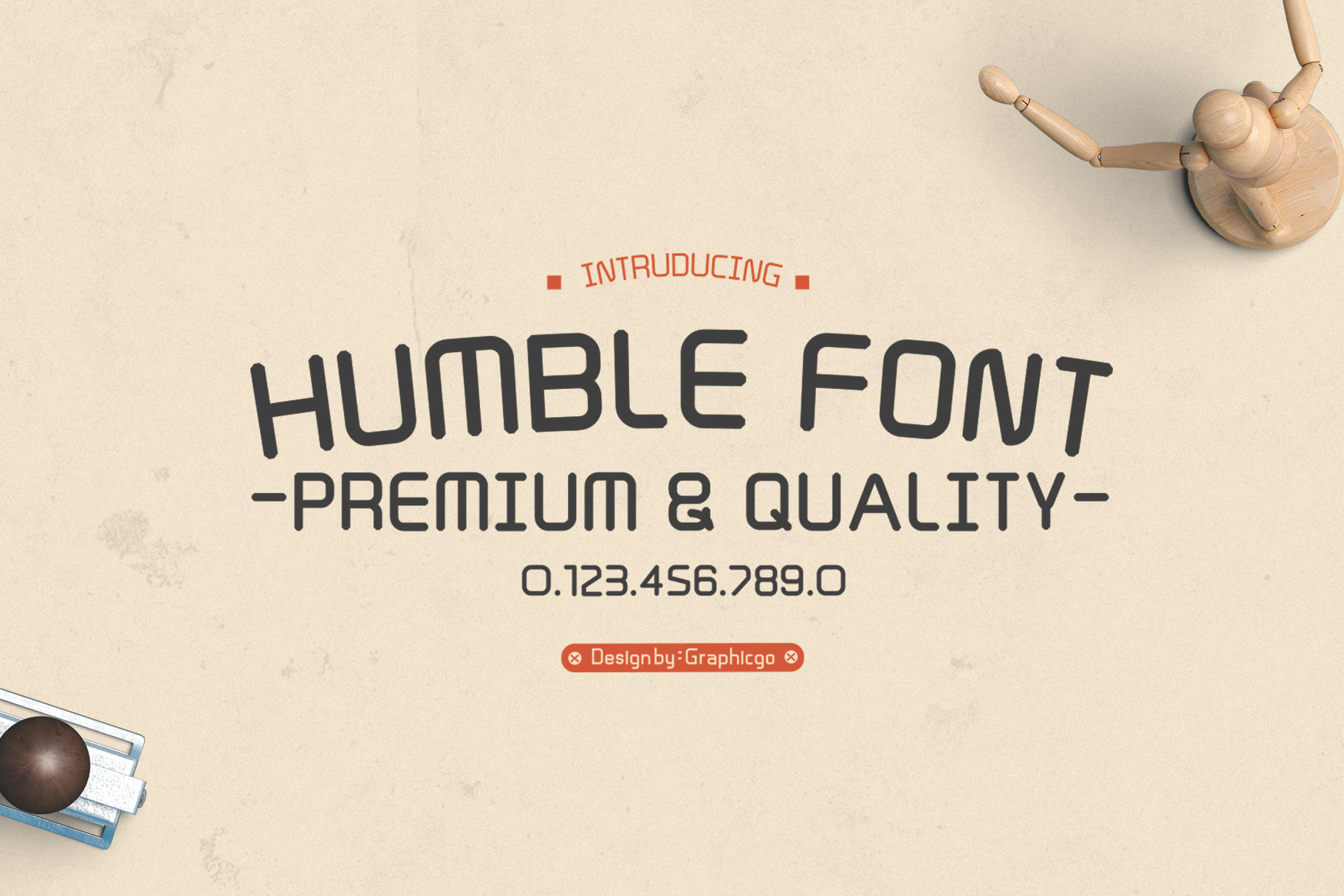
Humble Font
Humble Font is look humble and simple style. It 's perfect for organic products, cards, posters, wall art, branding, diy projects, greeting cards, labels, quotes, packaging, websites and much more.